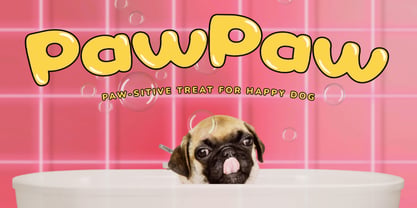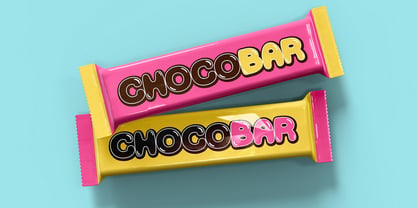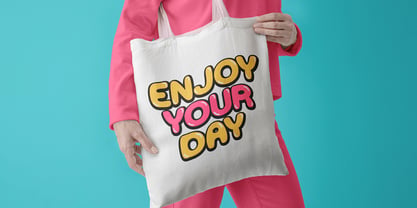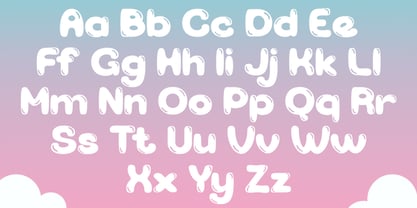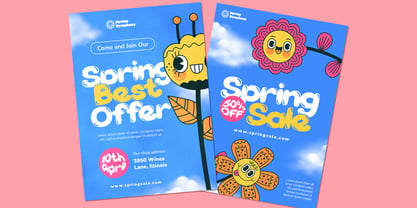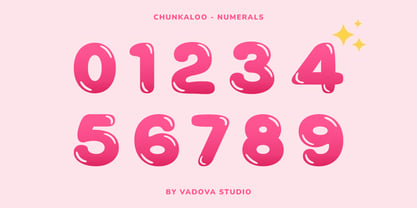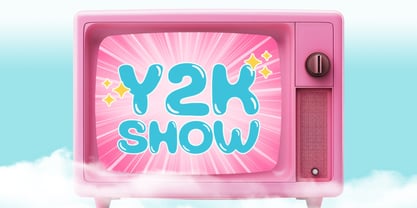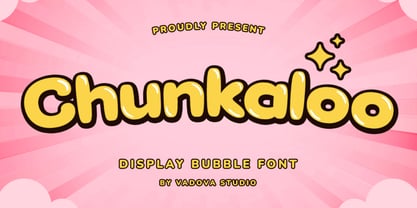
Chunkaloo
Elevate your designs with Chunkaloo Bubble Font, a font perfect for adding elegance and style to your projects. Whether it’s for quotes, logotypes, magazine headers, or more, this versatile typeface ensures your text stands out beautifully.